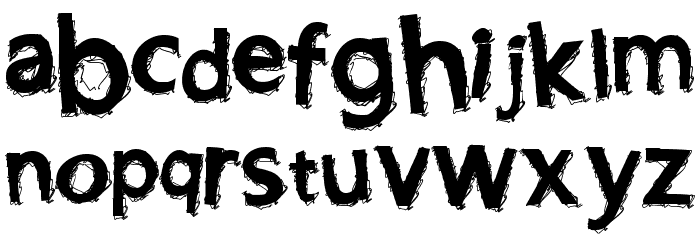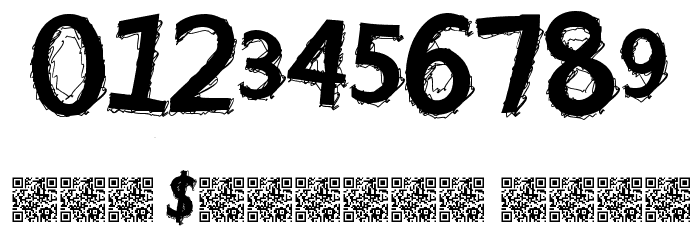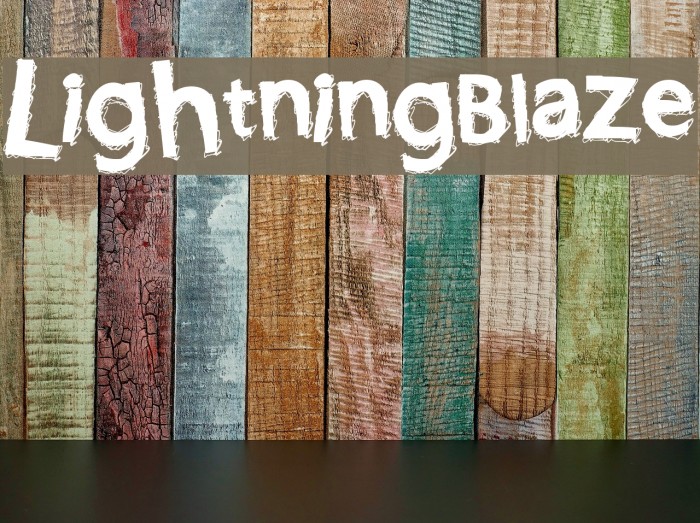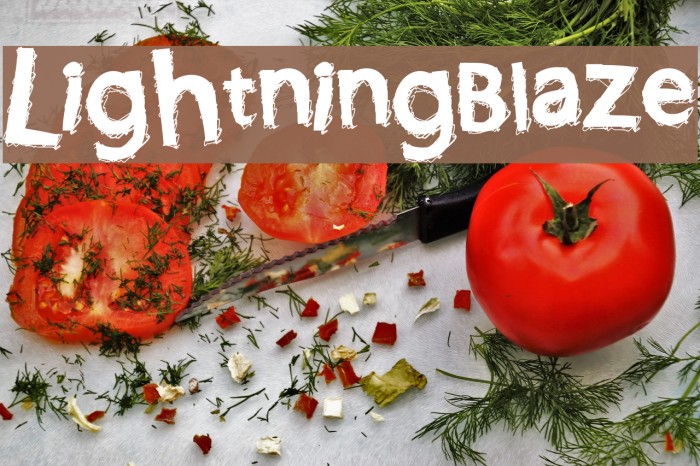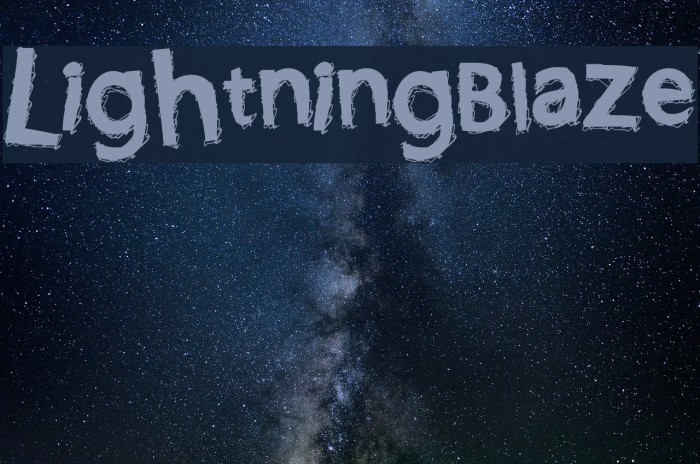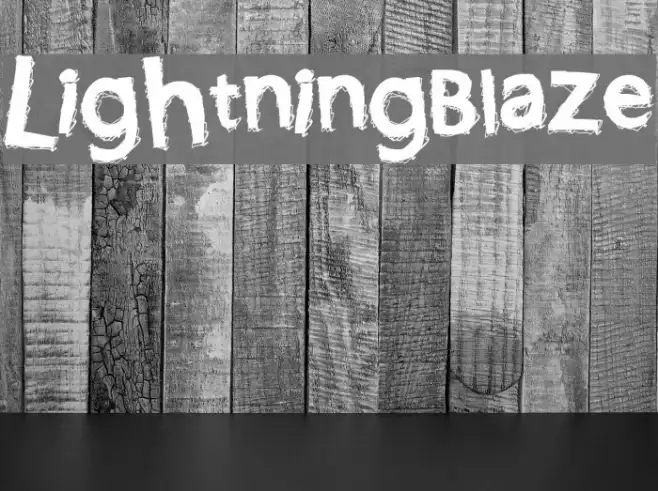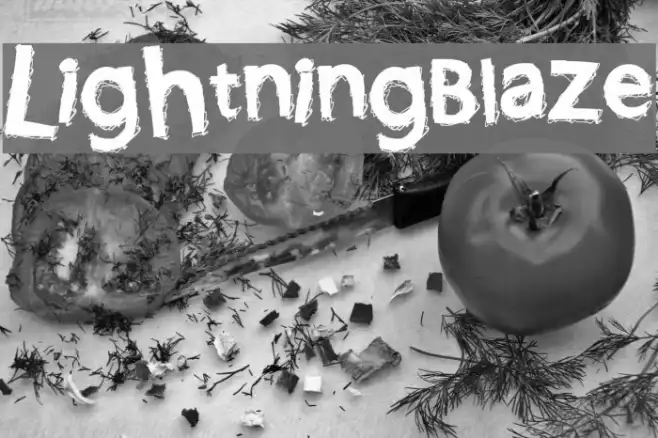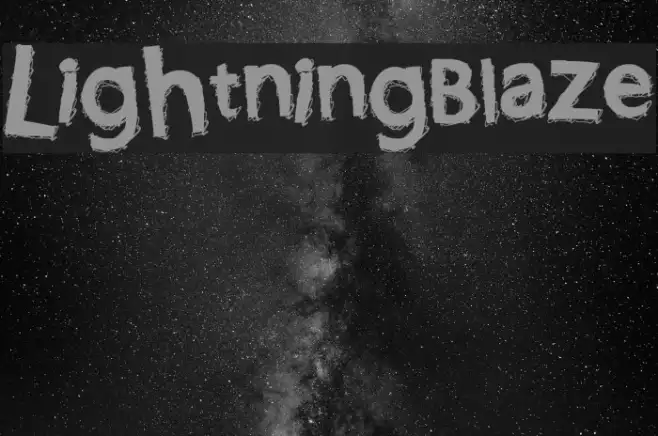
LightningBlaze Font
This font features a bold and dynamic style with a hand-drawn appearance. The characters are irregular and slightly distorted, giving them a unique, energetic feel. The strokes are thick and uneven, resembling brush strokes or graffiti, which adds to its edgy and informal vibe. The uppercase and lowercase letters maintain a consistent style, while the numbers and special characters follow the same design principles. This font is ideal for projects that require a bold statement and a touch of creativity.
A bold, hand-drawn font with an energetic and edgy style.
- Proposed Projects: Perfect for posters, album covers, street art designs, and any creative project that requires a bold and artistic touch.
- Overall Style: Modern, Artistic